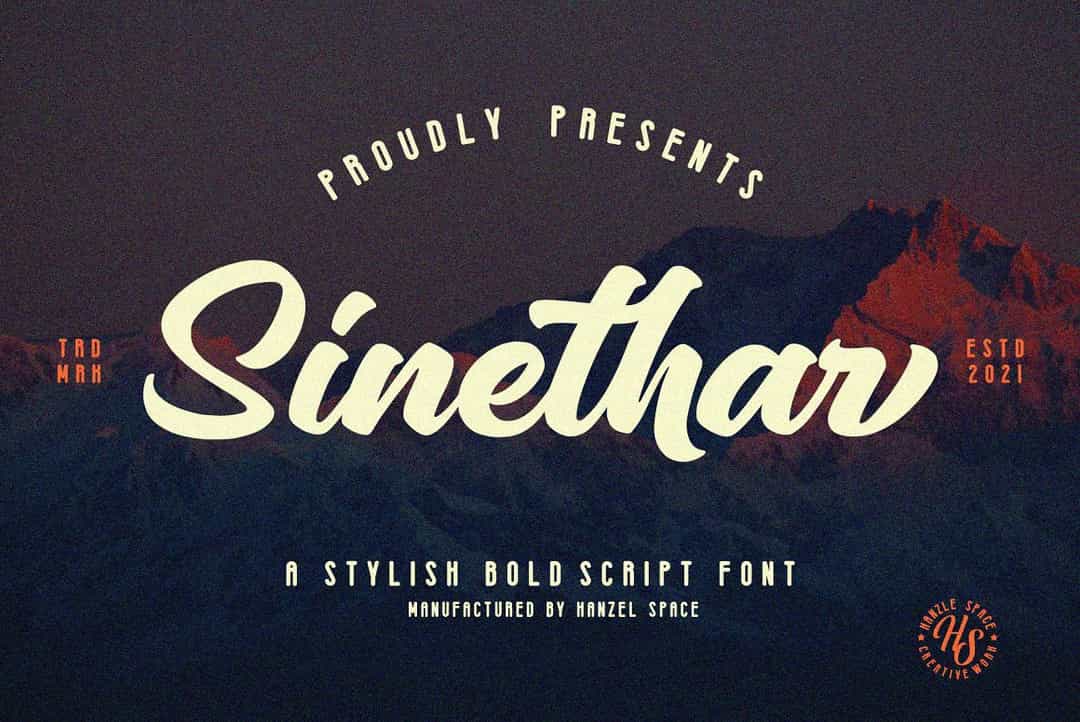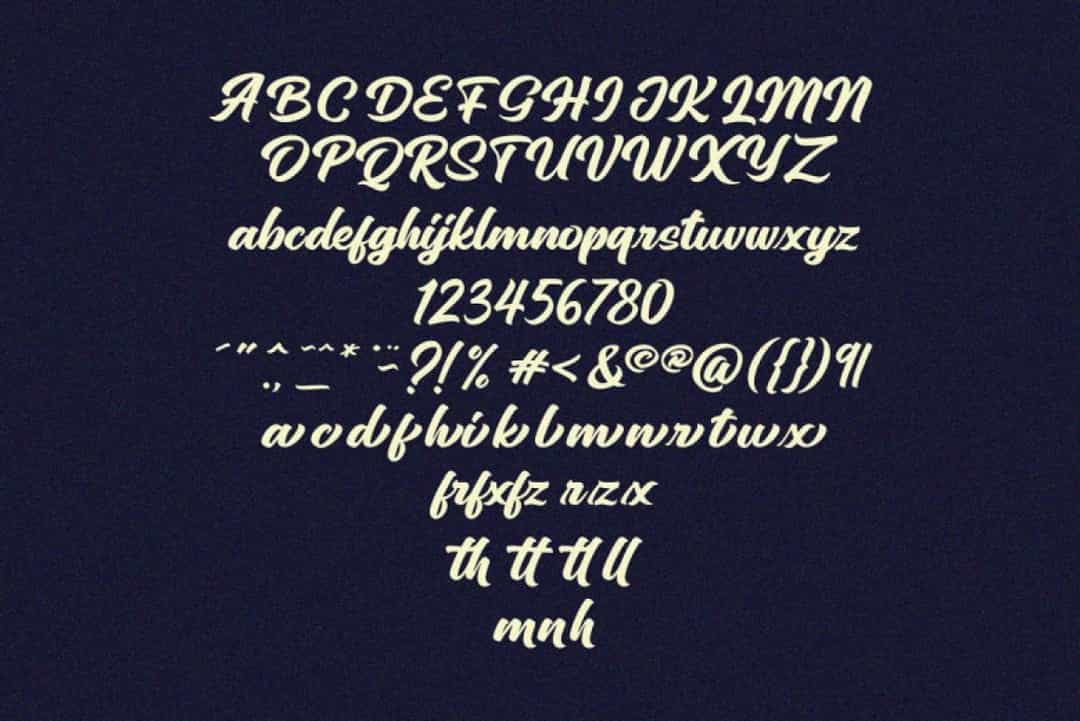
Sinethar Bold Script Font is designed with Modern Vintage & Retro styles. Sinethar is a tool for fast handwriting with additional Swash letters to help in writing fast and effectively. Great for logos, handwritten phrases, product labels, headers, banners, t-shirts, Facebook posts, Greeting cards etc.